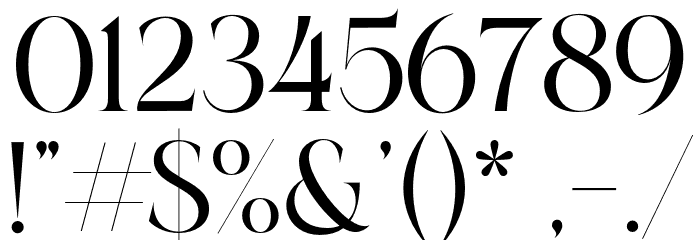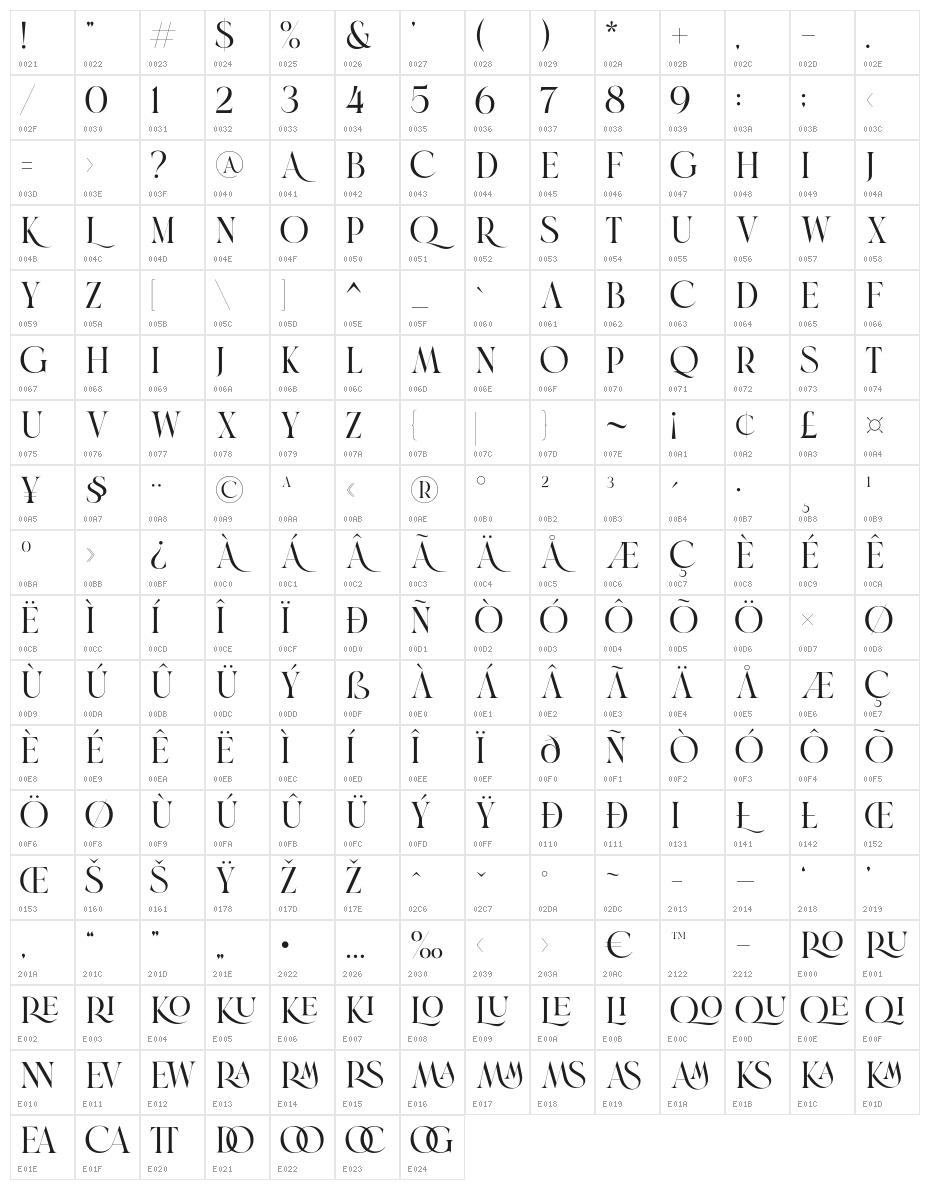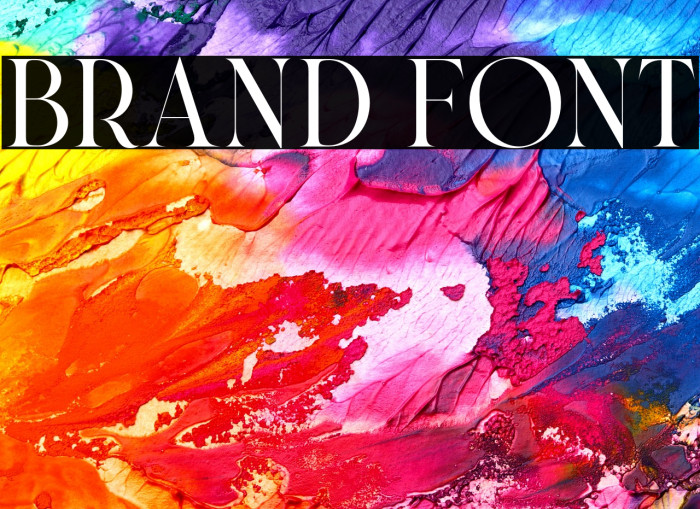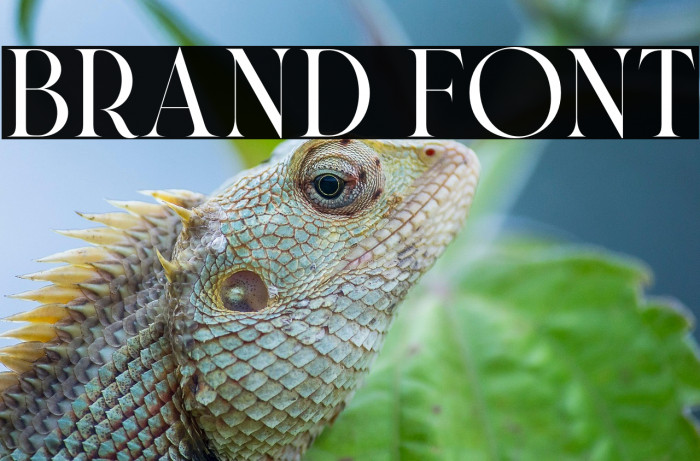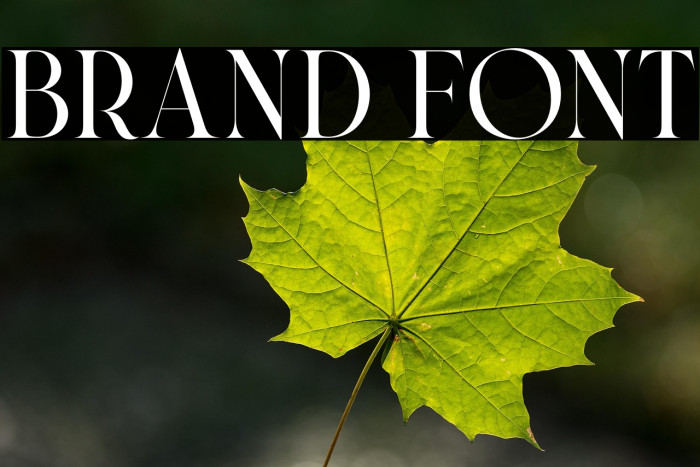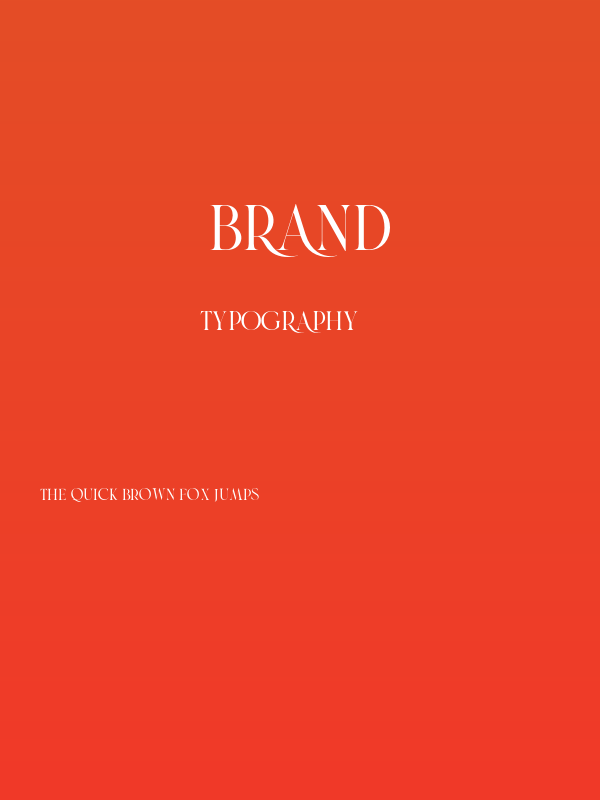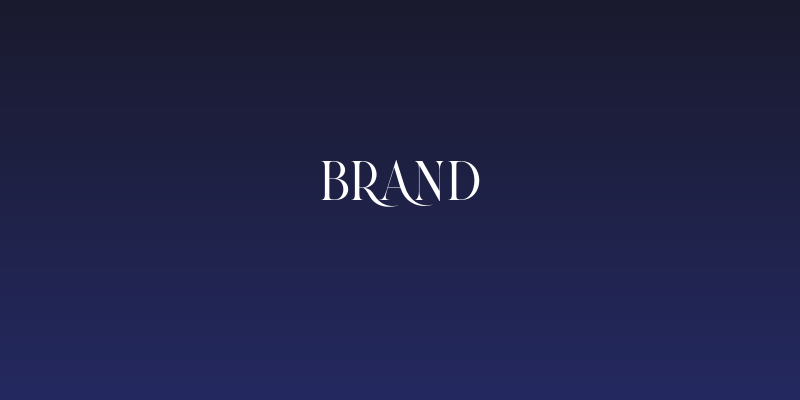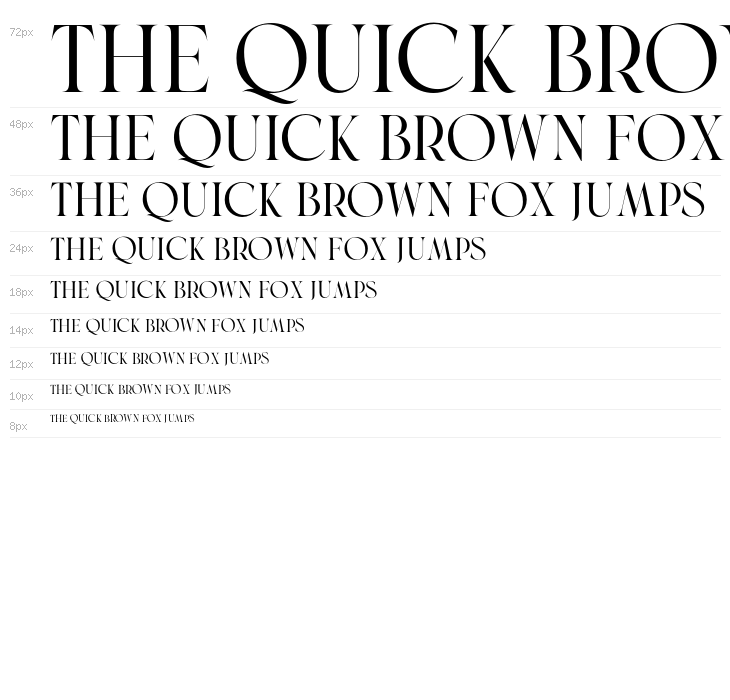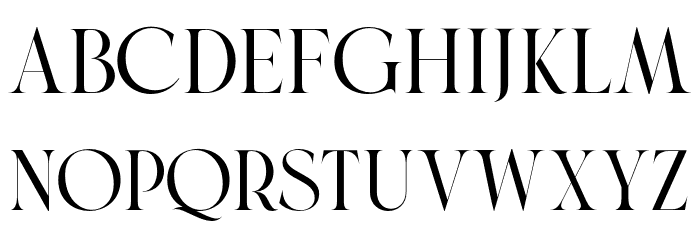
Brand Font
Brand Description
This elegant typeface features a sophisticated and refined design, characterized by its high contrast between thick and thin strokes. The serifs are sharp and pronounced, adding a touch of classic elegance. The uppercase letters exhibit a graceful curvature, particularly noticeable in characters like Q and R, which have distinctive flourishes. The numerals are equally stylish, with a consistent design that complements the alphabet. The special characters maintain the overall aesthetic, ensuring a cohesive look across all glyphs. This font is ideal for projects that require a touch of luxury and sophistication.
| Proposed Projects | Ideal for luxury branding, editorial design, wedding invitations, and high-end product packaging. |